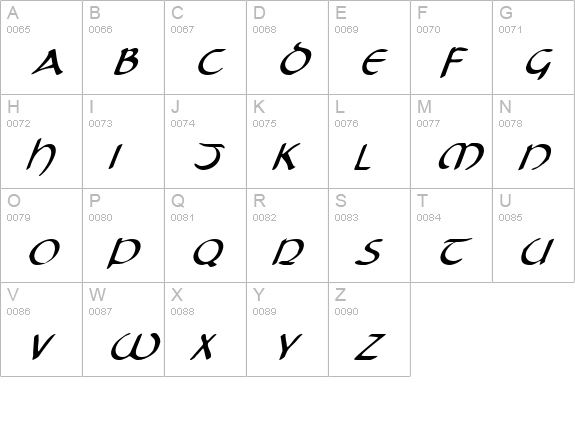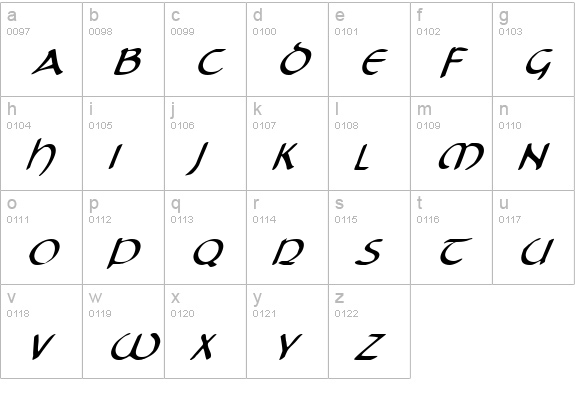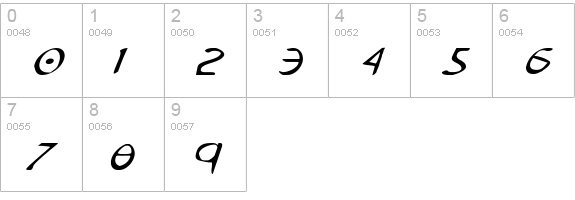
Tristram Italic is a distinctive, italic variant in the Tristram typeface family \xE2\x80\x94 well suited to design and typography projects.
Tristram Italic is a stunning and elegant font that exudes sophistication and charm. Its sleek and slender letterforms are perfect for adding a touch of refinement to any design project. This font is ideal for creating invitations, logos, branding materials, and more. Tristram Italic is available for free download at FontsMarket.com, making it easily accessible for designers looking to elevate their work with a touch of class and style. Don't miss out on this exquisite font that will surely leave a lasting impression on your audience.